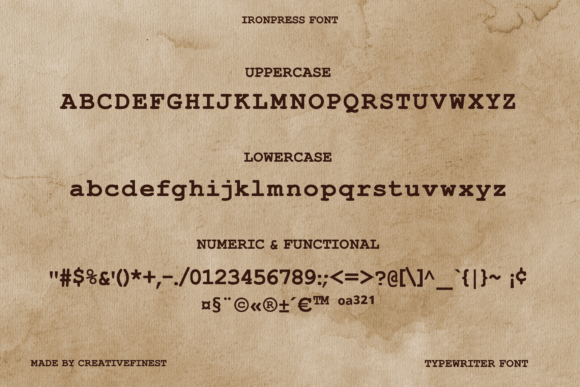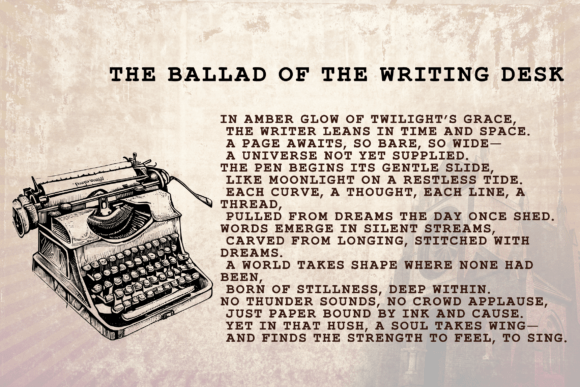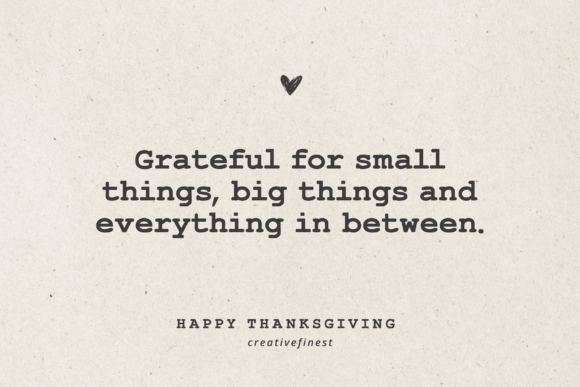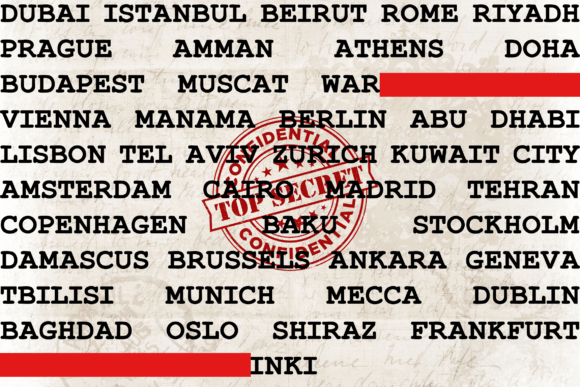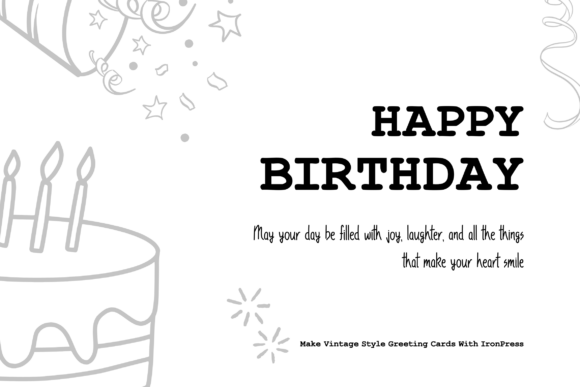
Introduction to Ironpressfont Font
As you sit at your desk, surrounded by the faint hum of your computer and the faint scent of freshly brewed coffee, you suddenly feel the urge to create something truly unique. A burst of inspiration hits you, and you know exactly what you want to express – the raw emotion, the worn-out texture, and the nostalgia of a bygone era. That’s where Ironpressfont Font comes in – a game-changing design resource that perfectly captures the essence of a classic typewriter.
Whether you’re working on a creative project, a design concept, or a digital story, Ironpressfont Font is the perfect companion to bring your vision to life. Its distinctive, high-quality design effortlessly infuses texture and emotion into your work, making it an ideal choice for designers looking to add a personal touch to their projects.
Key Features of Ironpressfont Font
- High-quality, unique font design perfect for creative projects and design resources.
- Ironpressfont Font offers a transparent background, allowing for easy layering and design flexibility.
- Ironpressfont Font is ideal for designers and artists seeking a distinctive, high-quality design resource.
Honest Review: Ironpressfont Font
As a designer, I’m always on the lookout for high-quality design resources to elevate my creative projects. I recently stumbled upon the Ironpressfont Font, and I’m excited to share my honest review.
- ✨ Unique and creative font styles that can add a touch of sophistication to any design.
- ✨ High-quality vectors that can be scaled up or down without losing any detail.
- ✨ Transparent background option, making it easy to overlay on any image or design.
- ⚠️ Limited font sizes and weights, which may not be ideal for projects requiring a wide range of font styles.
Ironpressfont Font is suitable for a variety of creative projects, including branding, marketing materials, and digital designs. Its high-quality design and transparent background make it a great choice for designers looking for a versatile and effective design resource. You can download the Ironpressfont Font for free, making it an excellent addition to your design library.